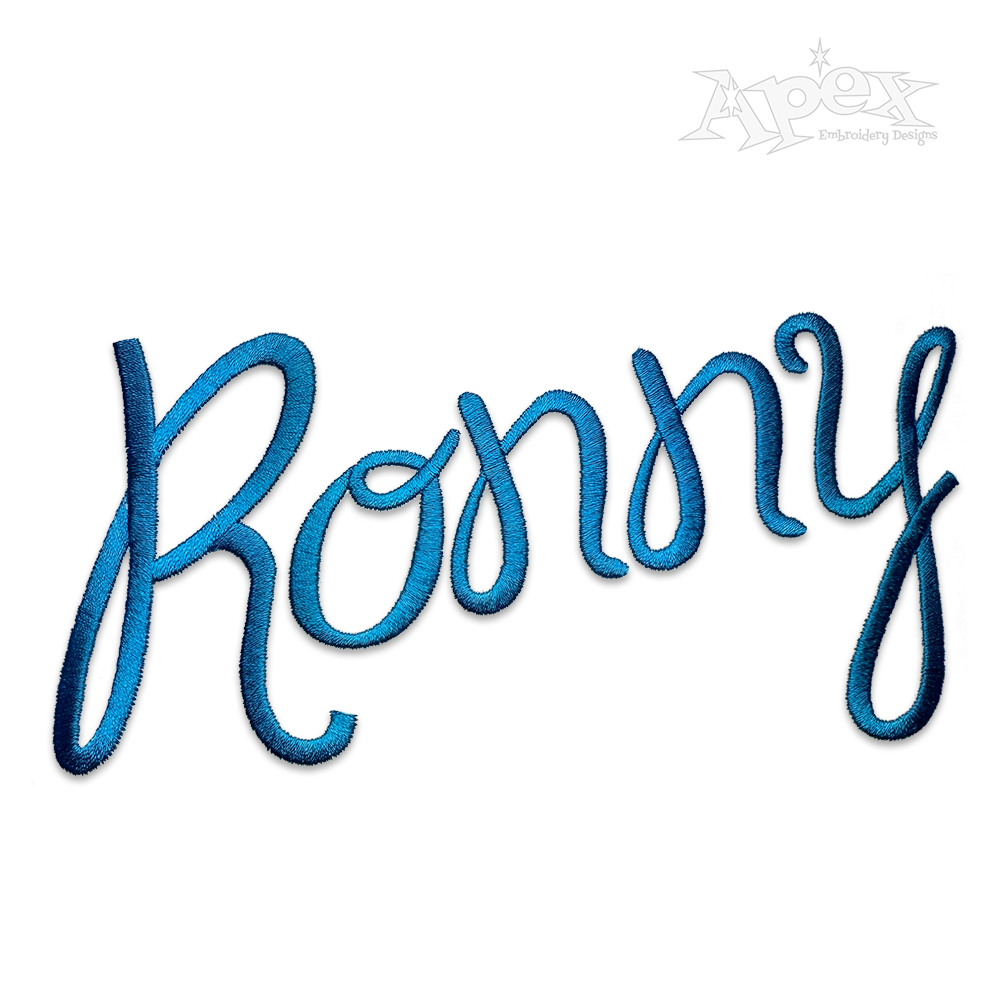
Chelsea Embroidery Font
Rooted in the timeless sophistication of traditional tailored typography, the Chelsea Embroidery Font captures an air of stately refinement and contemporary poise. Digitized to echo the curated elegance of bespoke townhome interiors and classic British haberdashery, this satin stitch alphabet brings commanding structure and balanced beauty to the hoop. Every letterform balances clean architectural strokes with delicate transitions, allowing fine rayon or polyester threads to catch the light with rich, dimensional radiance. Whether gracing fine woven textiles or robust canvas, Chelsea transforms standard monogramming into an enduring heirloom statement.
Chelsea Embroidery Font Craft & Letterform Details
True embroidery excellence lies beneath the surface, and the digitizing behind the Chelsea Embroidery Font reflects artisan-level intentionality. Rather than relying on automated conversion, each letterform has been manually orchestrated with directional stitch angles that follow the organic flow of the typography. Specially constructed traveling underlays build a firm, stabilizing foundation beneath the satin columns, providing effortless loft without stiffening the base fabric.
The terminals and junctions are engineered with micro-calibrated pull compensation to guarantee that straight columns remain impeccably parallel, outer contours stay sharp, and inner corners do not bunch into bulky thread knots. This disciplined approach to satin flow creates a remarkably smooth, mirror-like thread reflection, ensuring that your finished stitch-outs possess the tactile prestige and unmistakable polish of master craftsmanship.